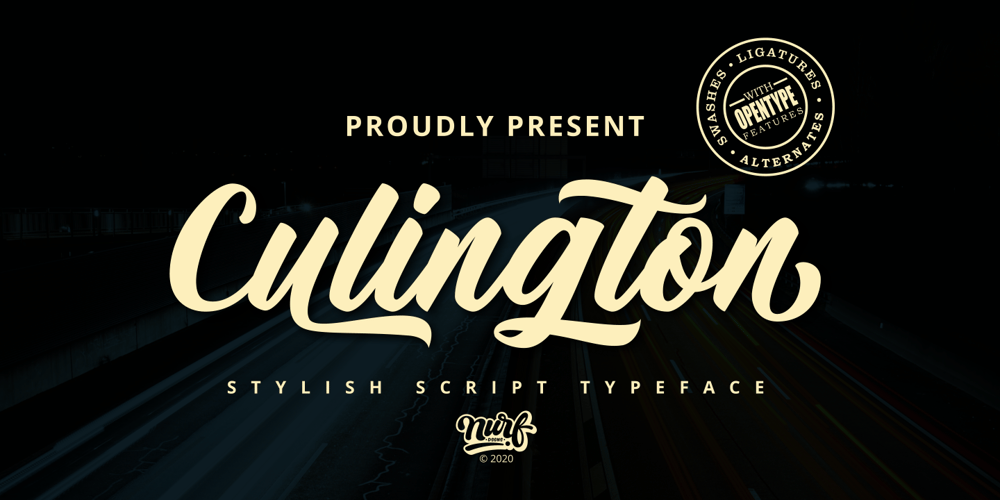
Culington
Culington font
Culington Font Family was designed by Nur Faidin and published by Nurf Designs. Culington contains 1 styles and family package options. Culington is a bold script font. This font will look great in any creative project such as logos, printed quotes, invitations, cards, product packaging, headers, and more!This font is PUA encoded which means you can access all of the glyphs and swashes with ease!